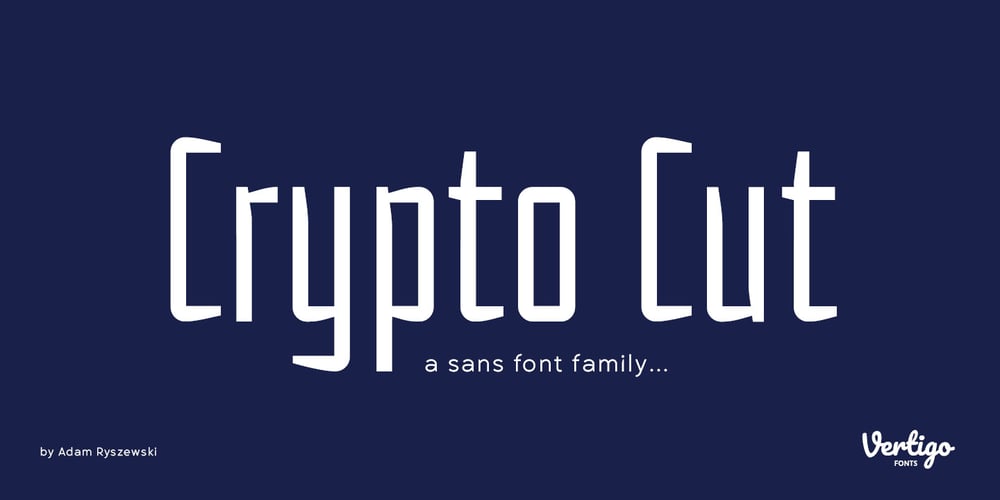
Crypto Cut Font Family was designed by Adam Ryszewski and published by Vertigo. Crypto Cut contains 3 styles and family package options. Crypto Cut is a narrow, sans serif, display font with three weights. Both lowercase and uppercase letters have the same width. It looks good in both classic and modern designs, logotypes, films, posters, billboards, press advertisements, websites, packaging. It provides multilingual support.